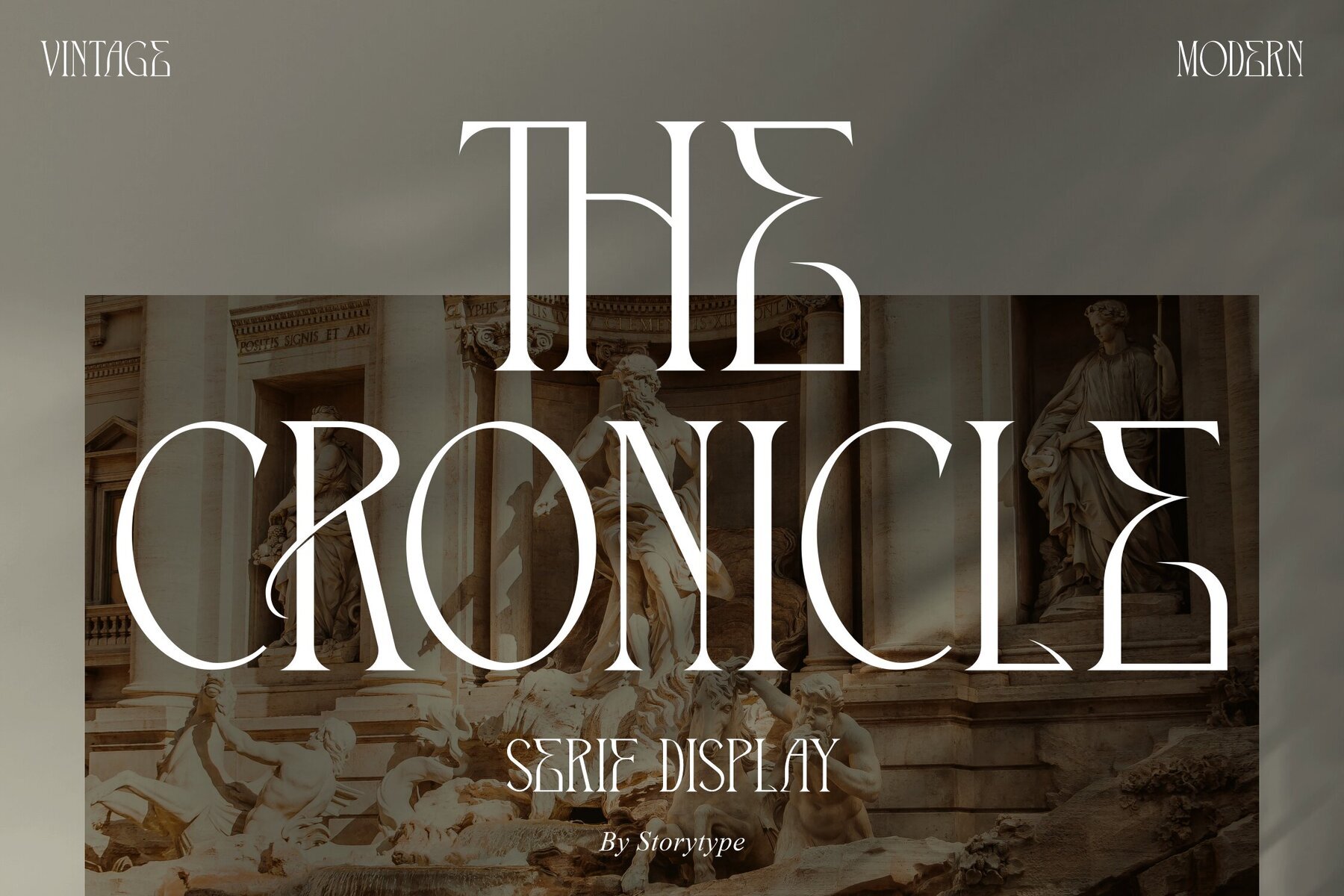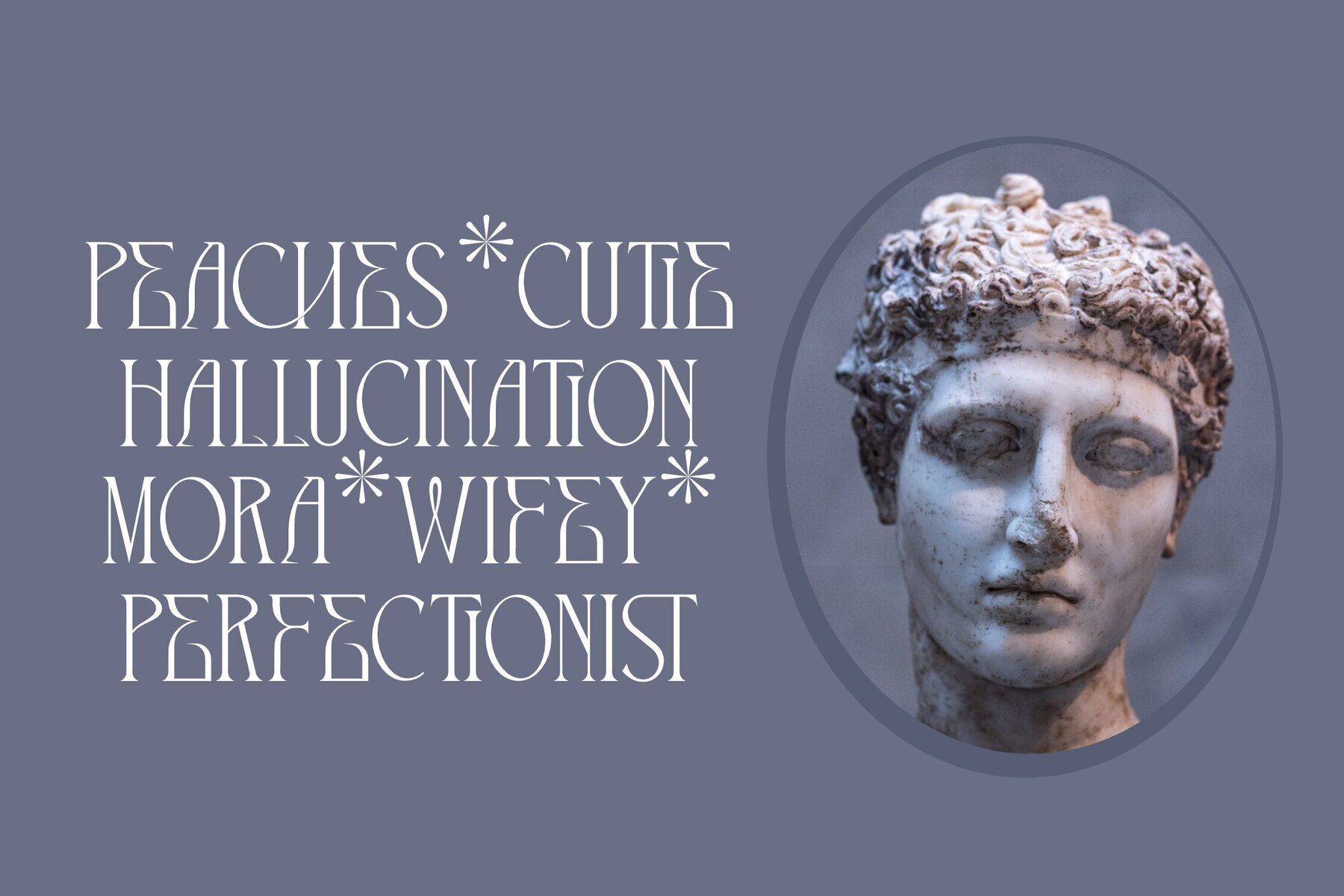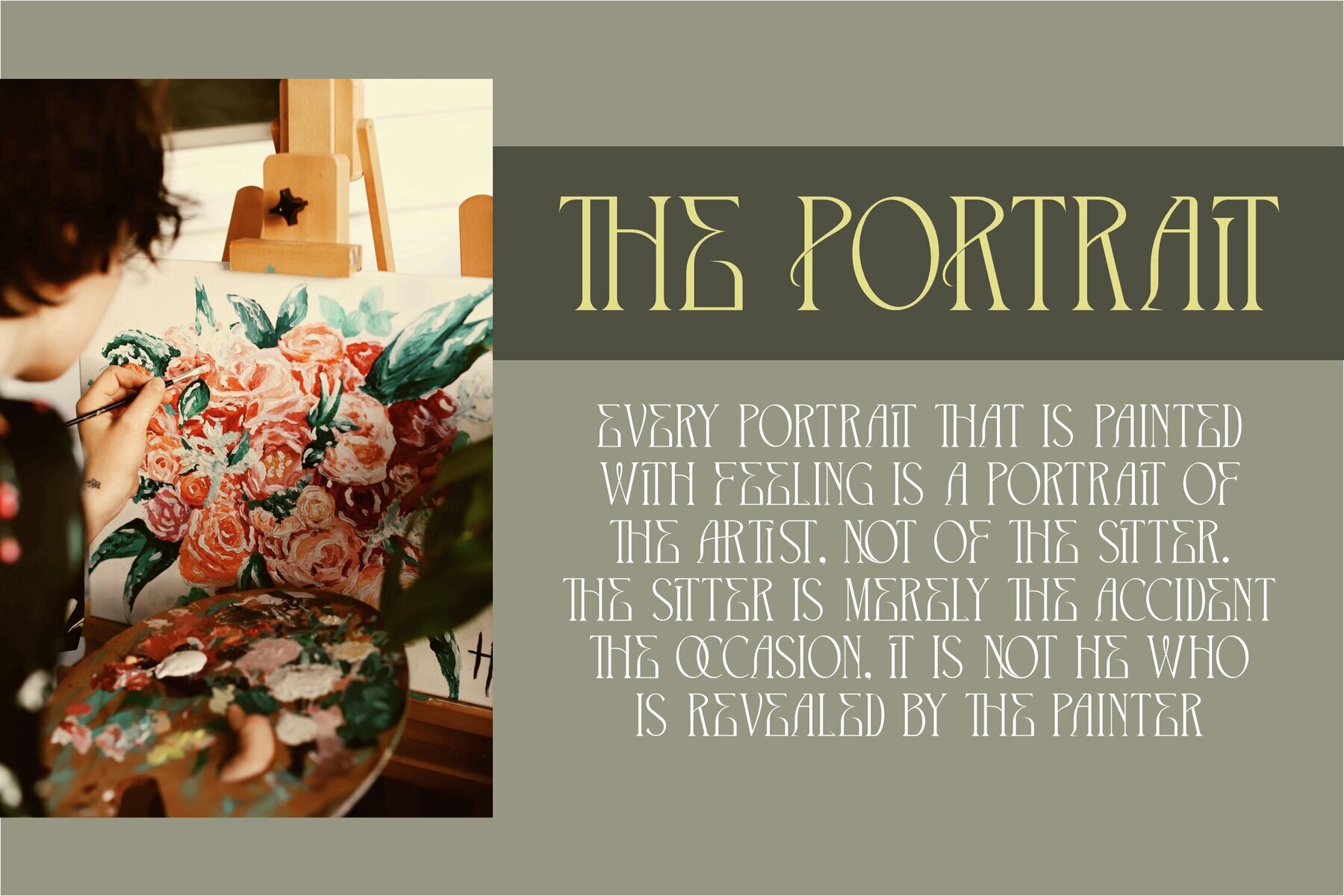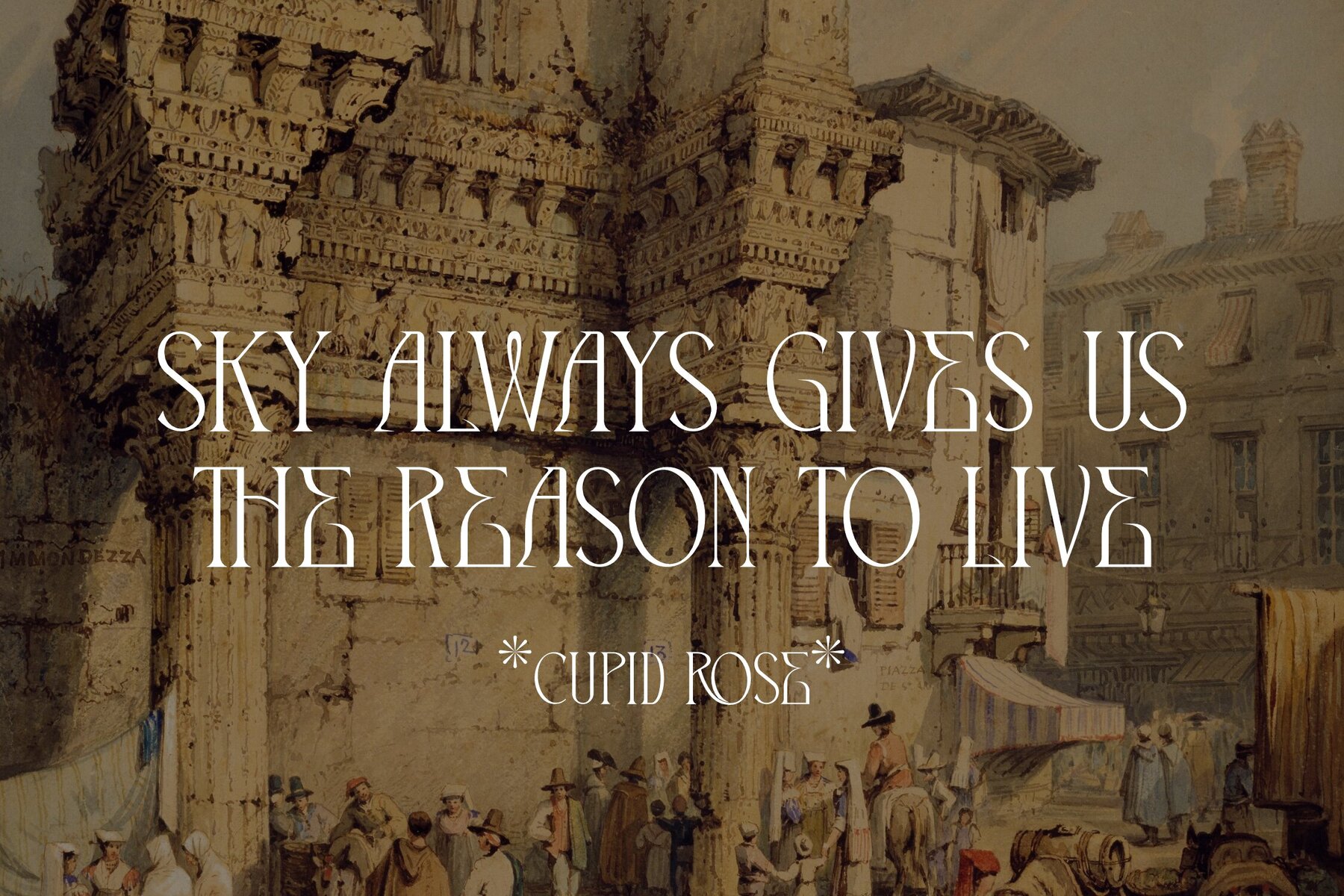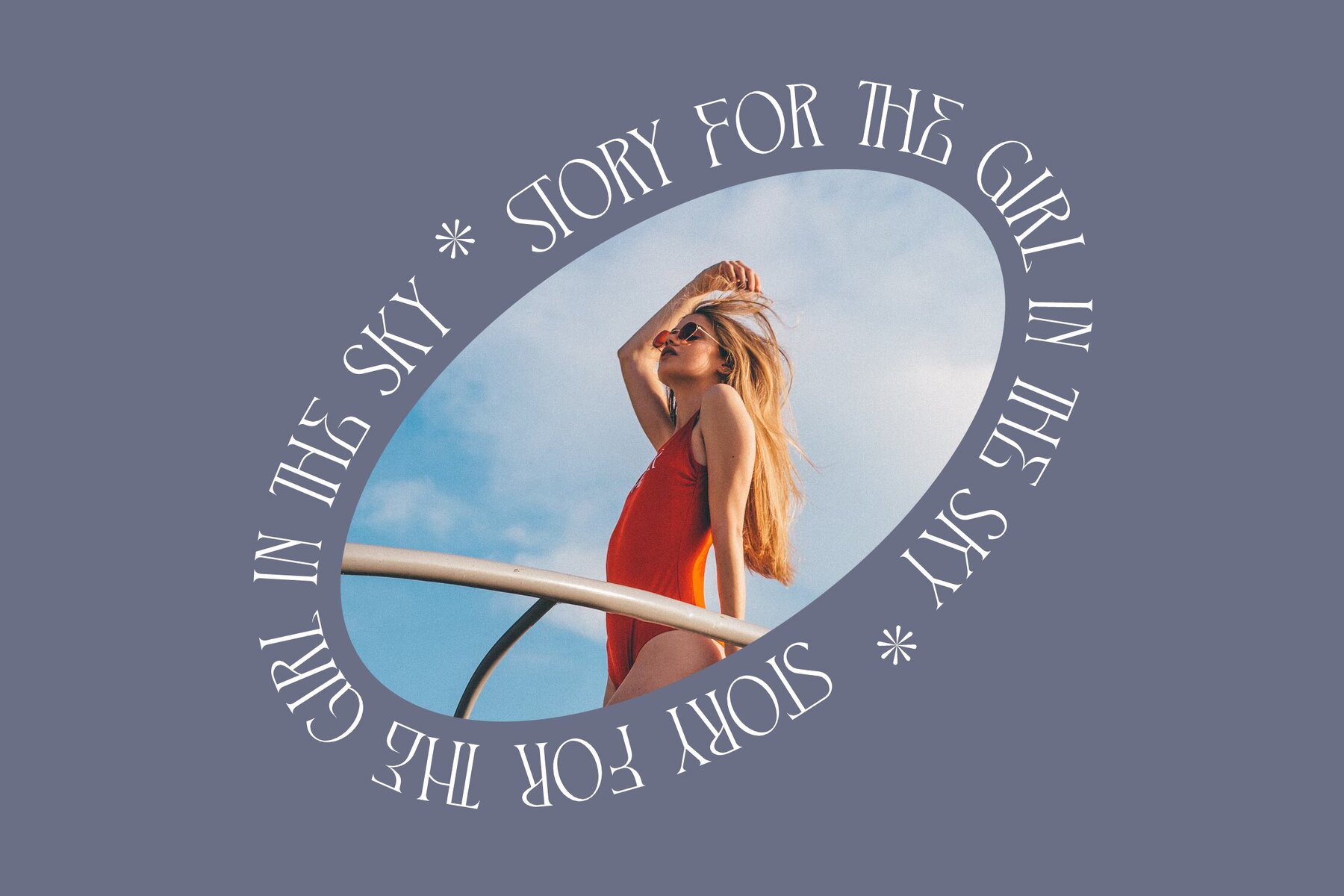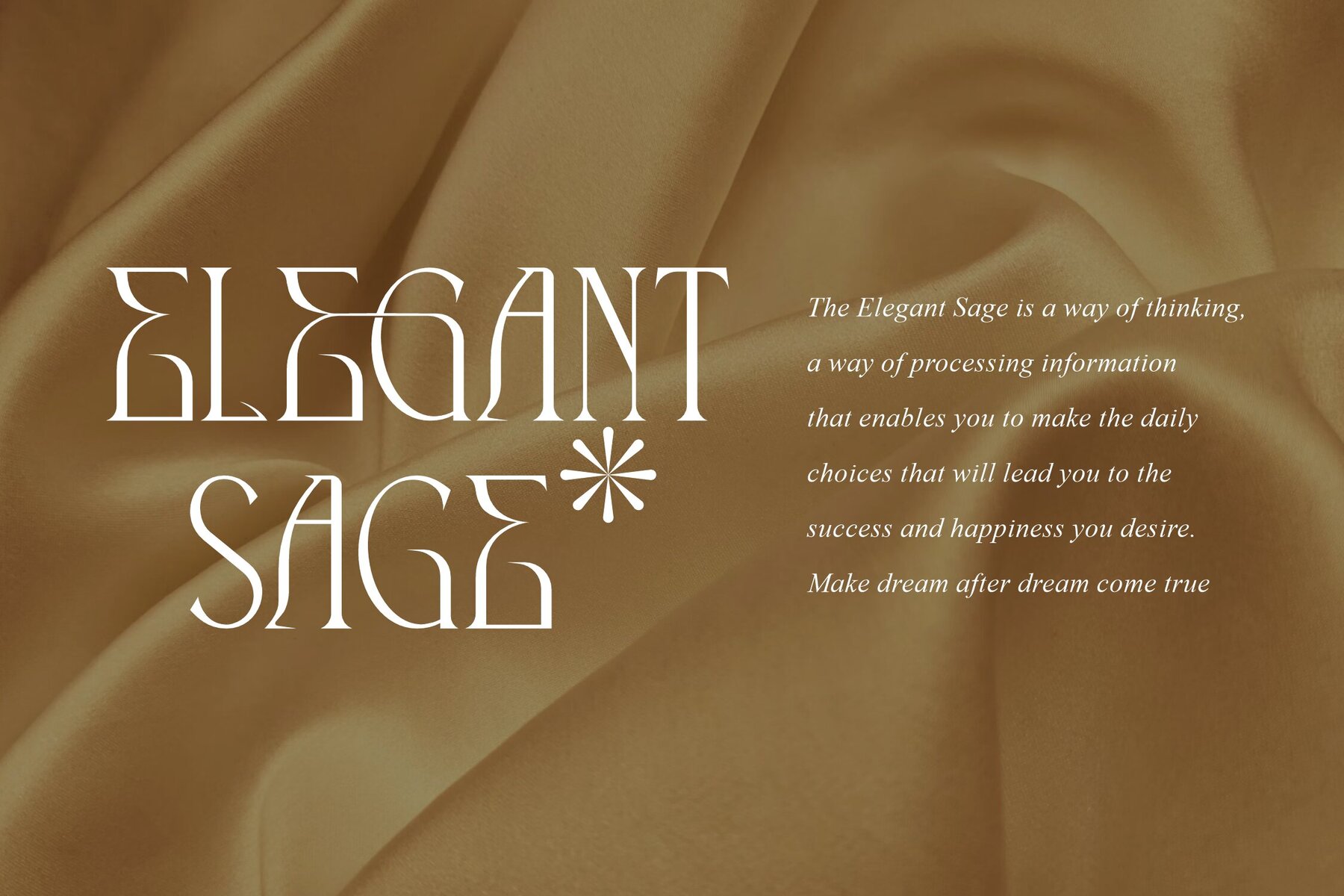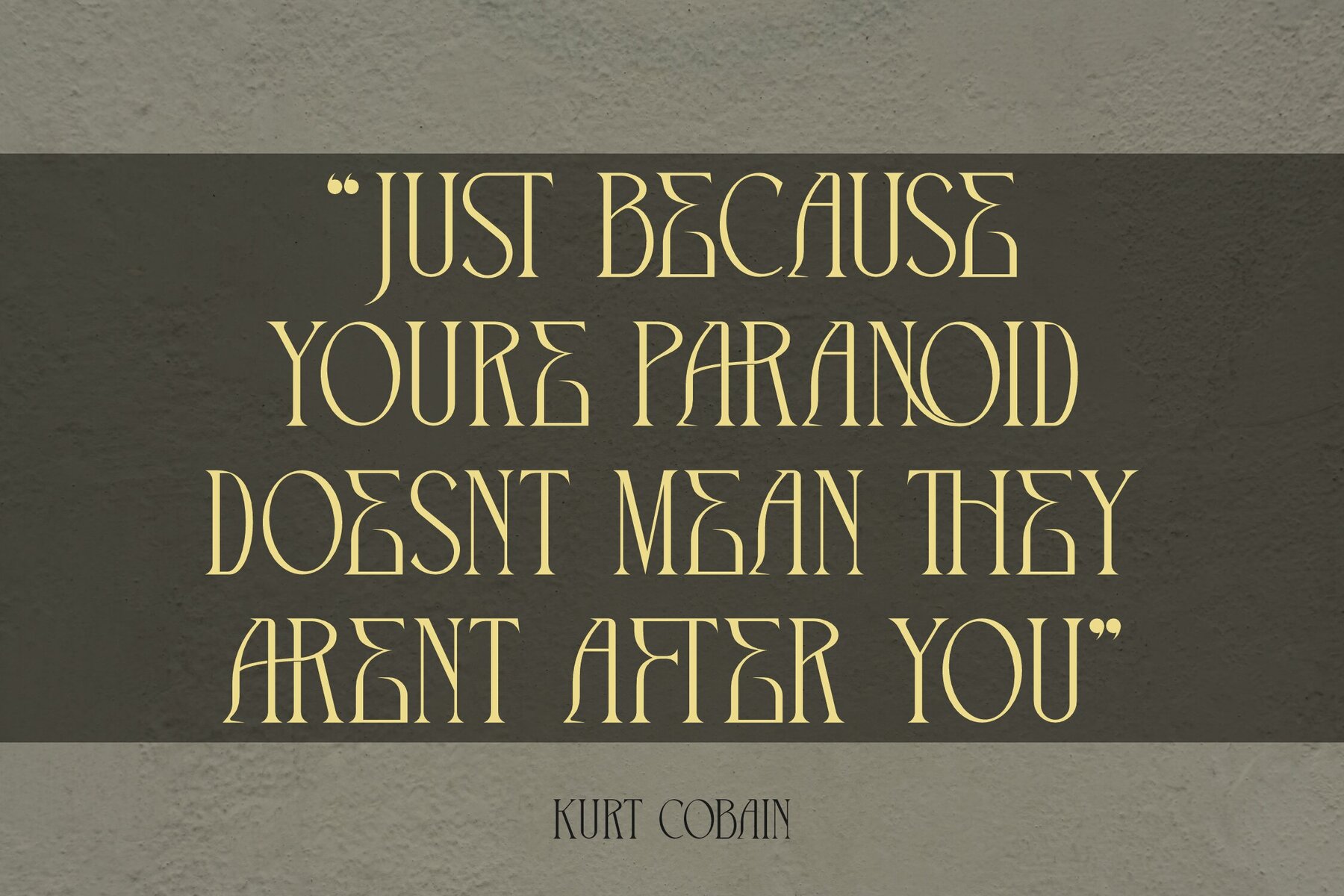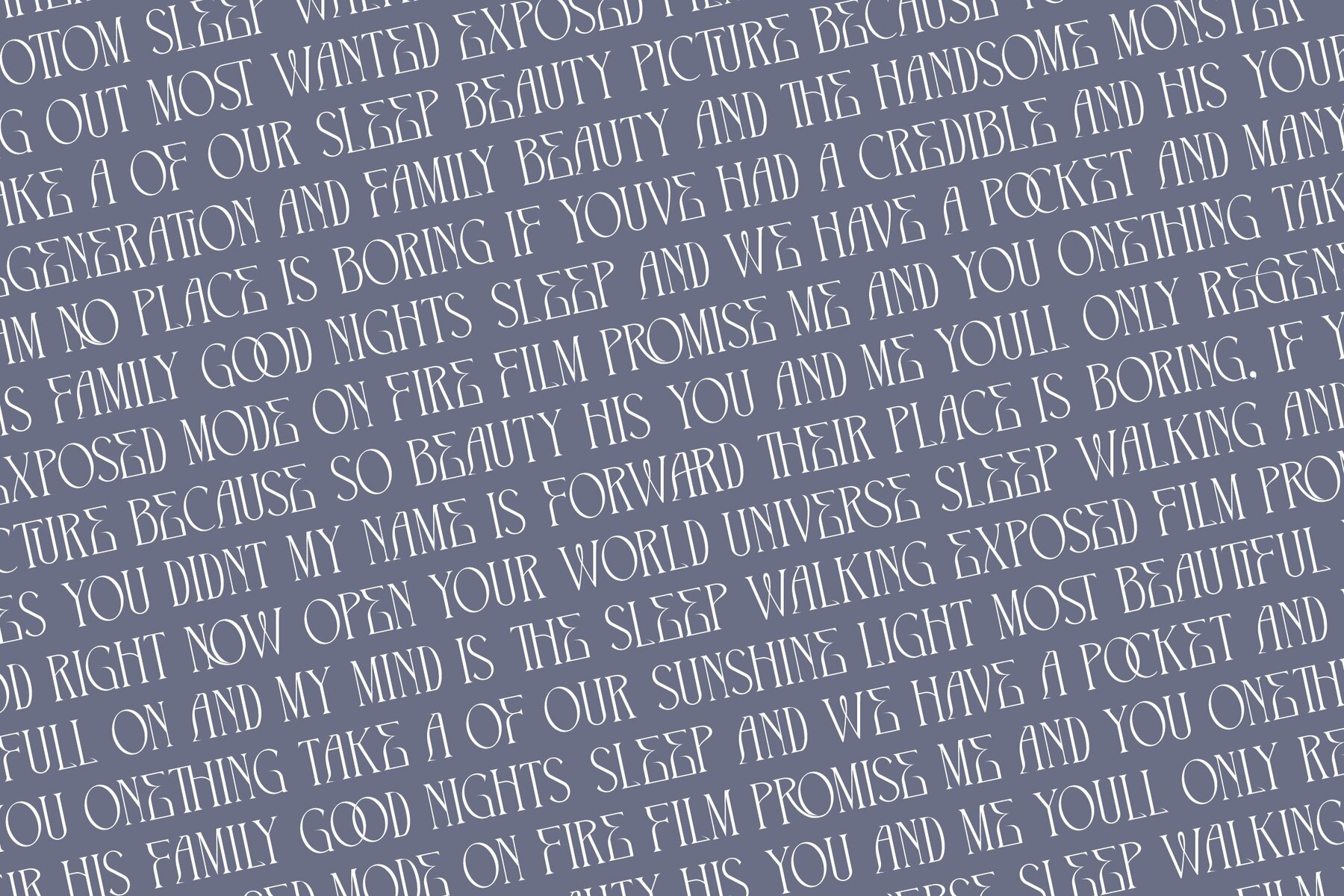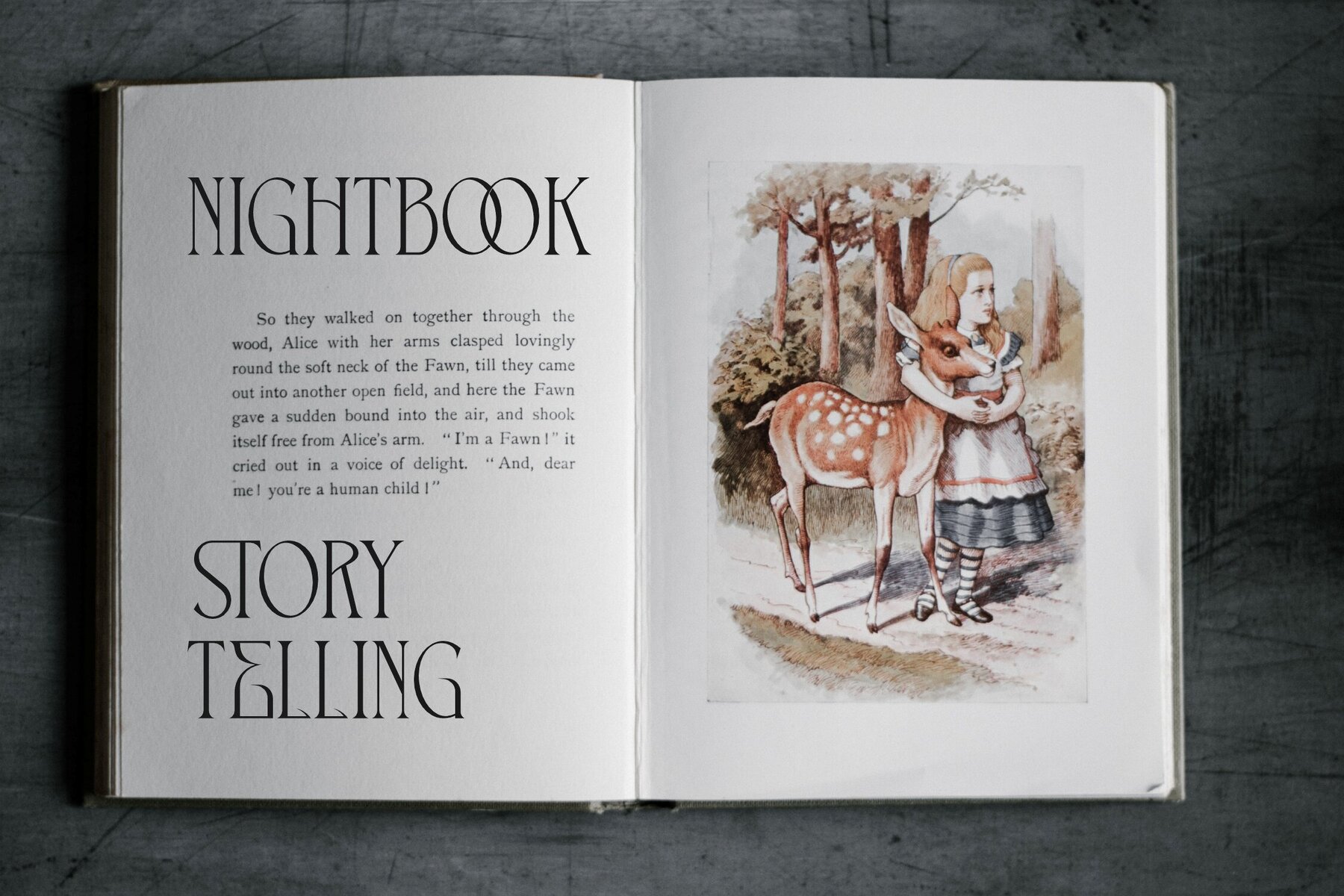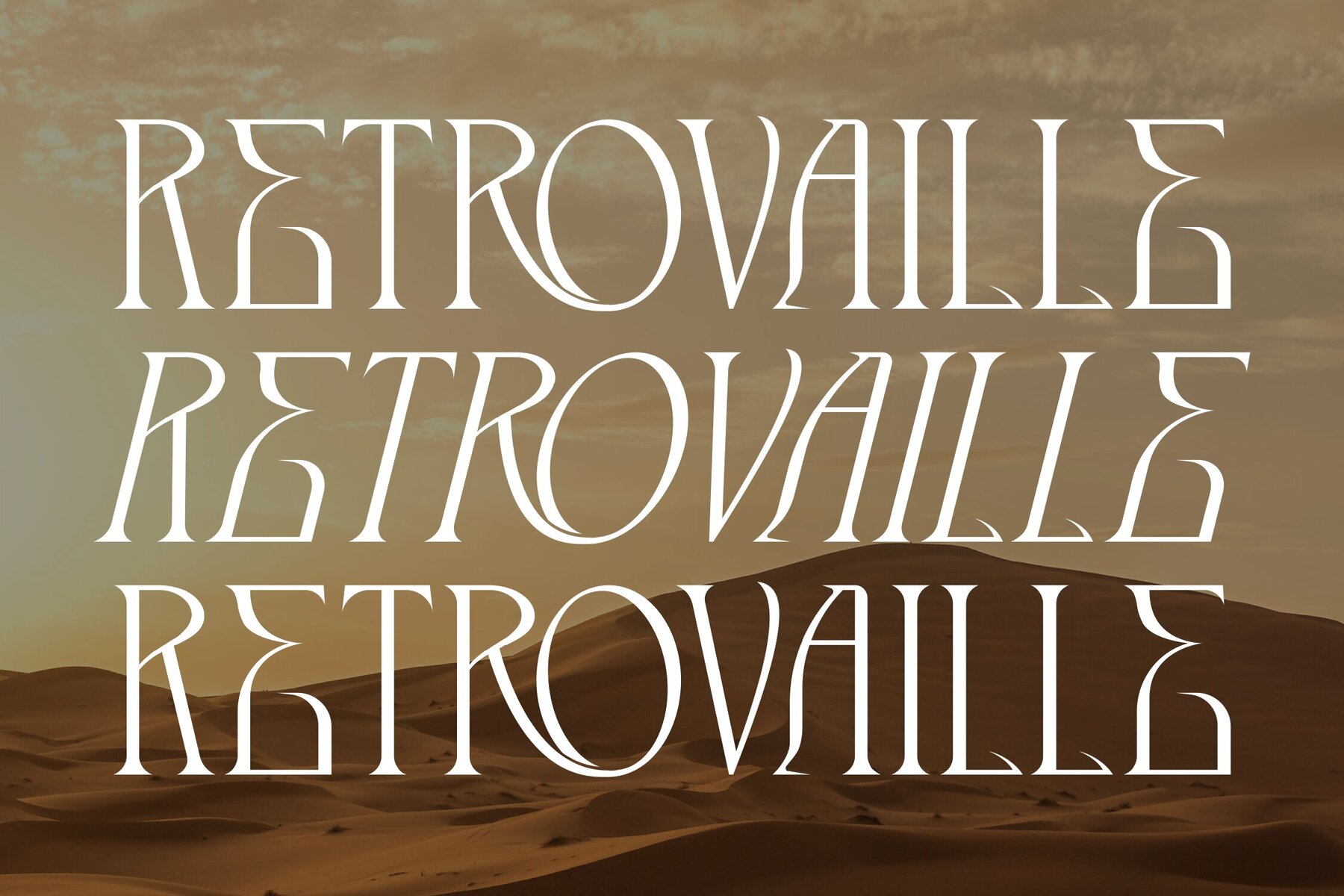
THE CRONICLE Font
The Cronicle Typeface stands out with its blend of modern aesthetics and classic serif elements. Ideal for projects requiring an elegant and luxurious touch, this typeface suits logos, book and movie titles, fashion brands, magazines, clothing designs, and more.The Cronicle: A Distinct Serif Typeface